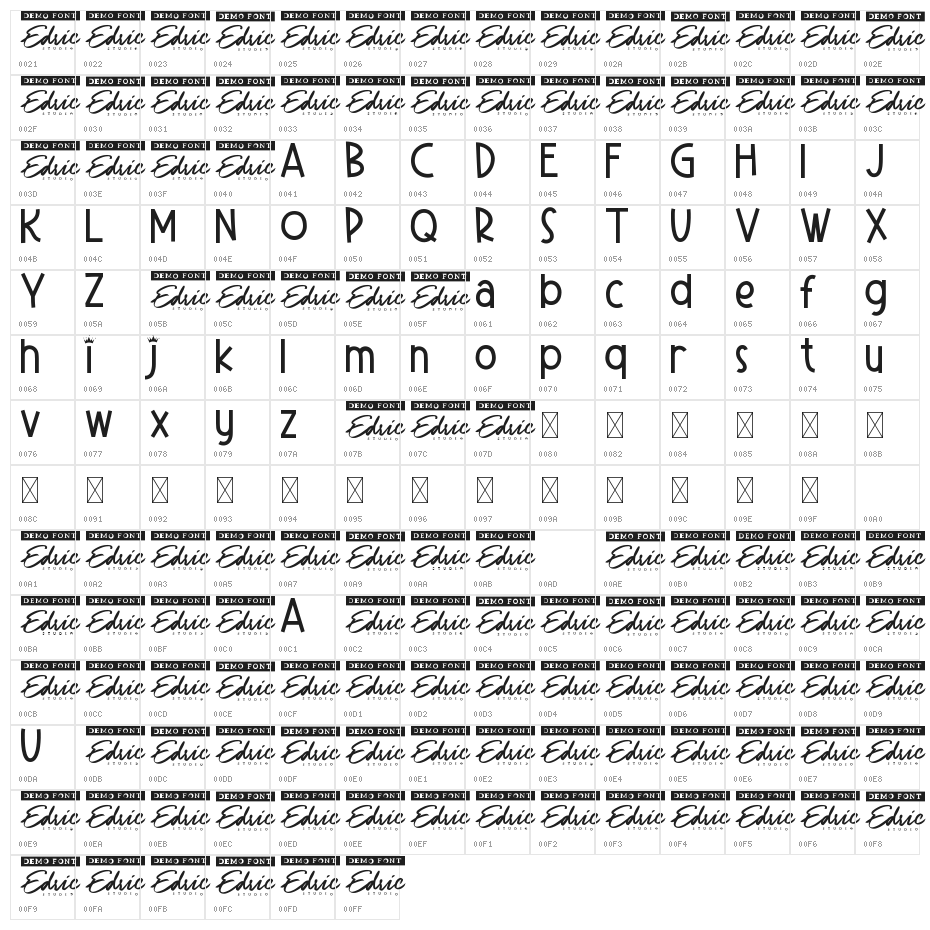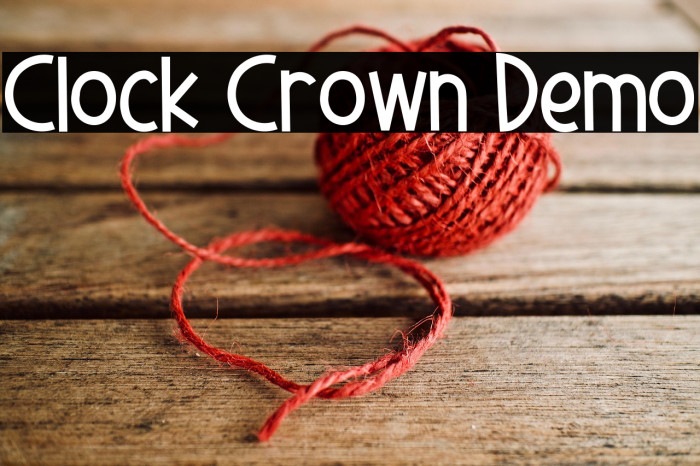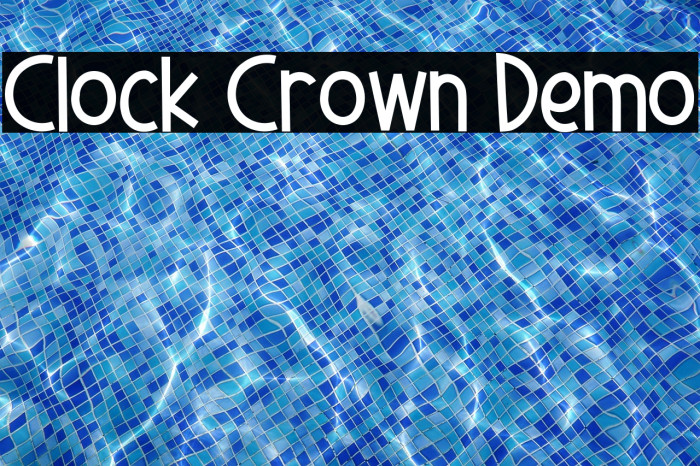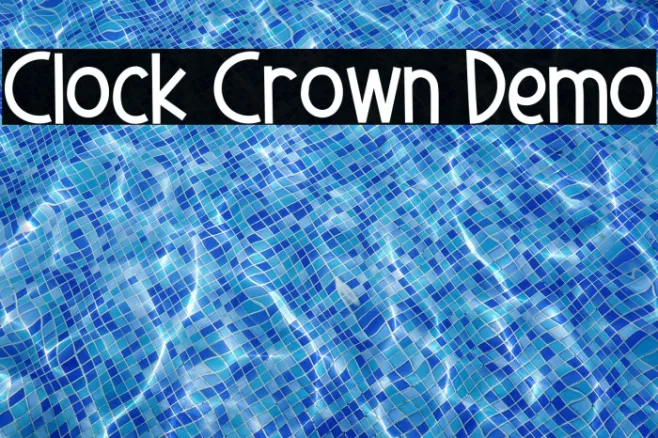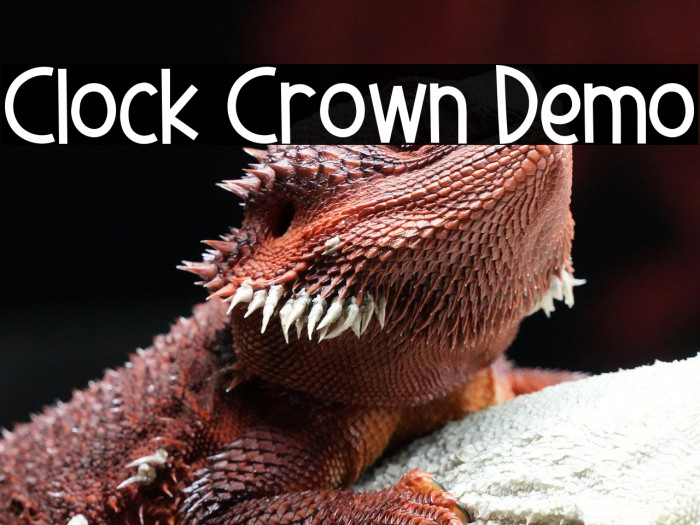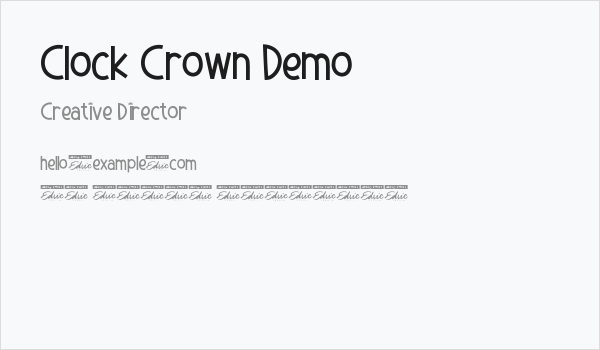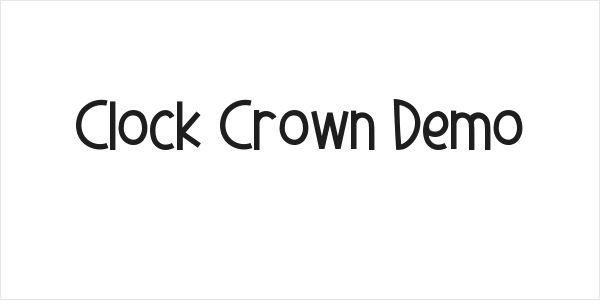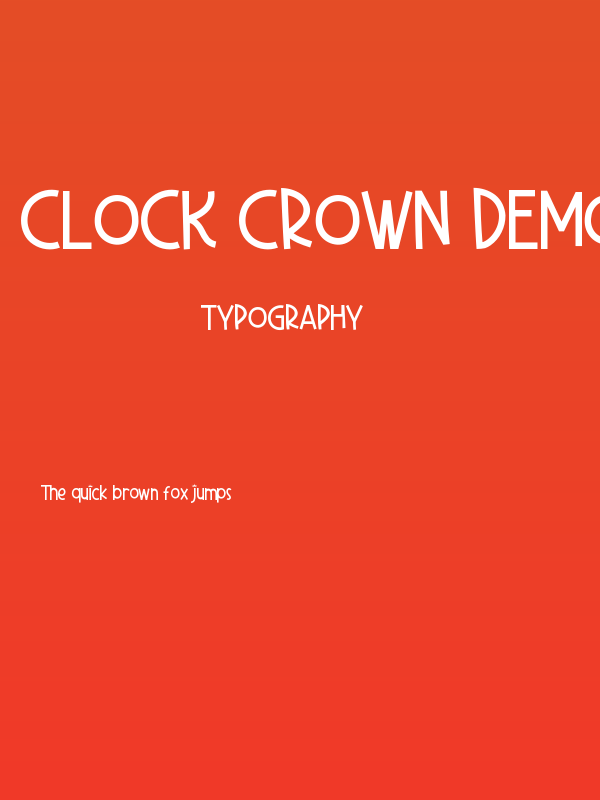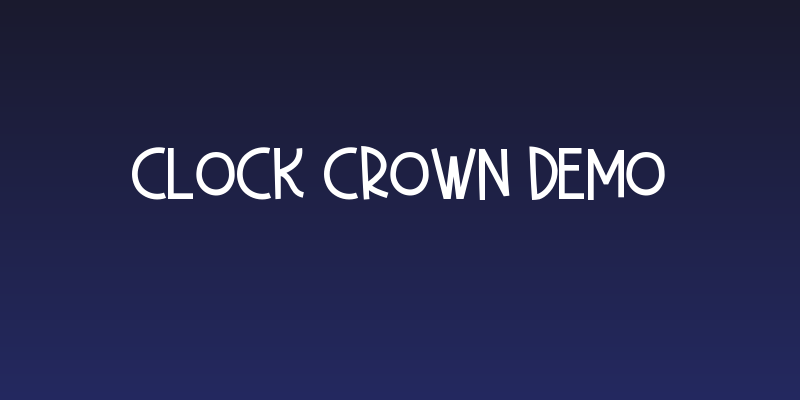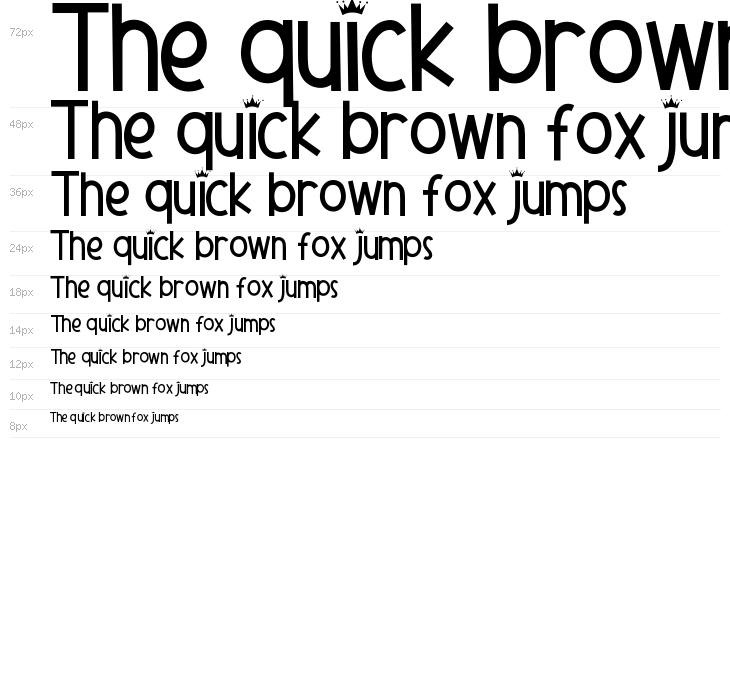
Clock Crown Demo Font
Clock Crown Demo Description
This font features a playful and whimsical design with a touch of elegance. The uppercase letters are bold and slightly elongated, giving them a unique and eye-catching appearance. The lowercase letters maintain a consistent style, with smooth curves and a slight tilt that adds to the font's charm. The inclusion of a crown over the 'j' adds a distinctive and regal element. The numbers and special characters are designed to match the overall playful yet sophisticated style. This font is perfect for projects that require a fun and engaging look while maintaining a sense of class.
| Overall Style | Playful, Elegant |
| Proposed Projects | Ideal for children's books, playful branding, invitations, and creative posters. |